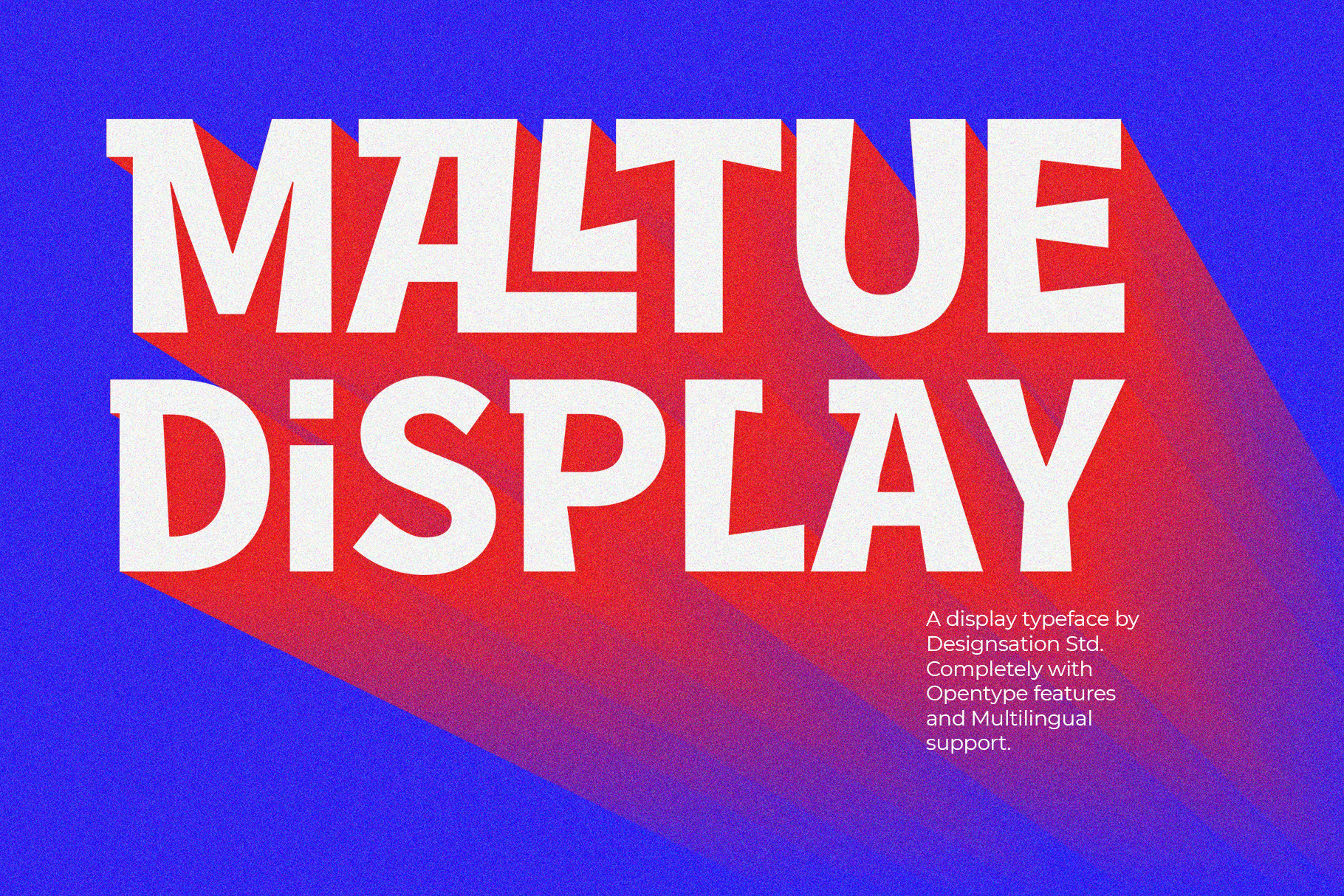
Maltu Tropical Display Typeface
The Tropical Display Typeface. Fit for any Headline needs, especially Food and Restaurant, beach club, surf company, and any other social media display needs, also used for printed design, web font, branding, and logo type. The shape reflecting a cheerful, good mood, also boxy look for your designs.
Some Open Type features included, like alternates and Decorative Ligatures, make your design looks authentic as one simply changes from basic character then switch it to activate the feature.